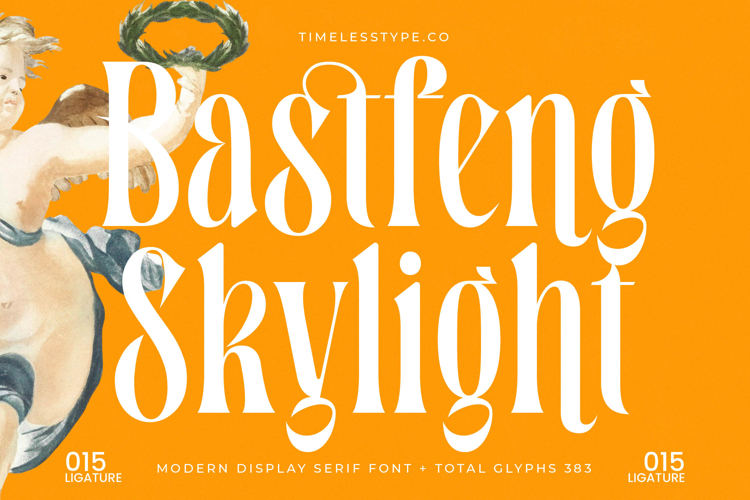
Bastfeng Skylight - Modern Display Serif Font
Bastfeng Skylight - Modern Display Serif Font emerges as a sophisticated statement in contemporary typography, crafted for designs that demand both boldness and refined elegance. Its distinctive high-contrast serifs and graceful, expansive curves command attention, delivering a visual experience that is both captivating and profoundly memorable. This font is a testament to timeless design, marrying classic serif aesthetics with a refreshingly modern sensibility to create truly impactful visual narratives.
Transform your creative projects with the undeniable allure of Bastfeng Skylight - Modern Display Serif Font. It is perfectly suited for crafting luxury branding, exclusive product packaging, and prestigious editorial design where every detail matters. From eye-catching headlines and elegant logotypes to impactful fashion campaigns and sophisticated invitations, its versatility makes it an indispensable asset for conveying a sense of premium quality and aspirational style.
Unlock global design potential with unparalleled ease. With its extensive multilingual support, Bastfeng Skylight - Modern Display Serif Font adapts seamlessly across global markets, making it incredibly versatile for international projects. This comprehensive linguistic capability ensures your brand message resonates universally, maintaining its distinctive elegance and clarity across diverse cultural contexts.